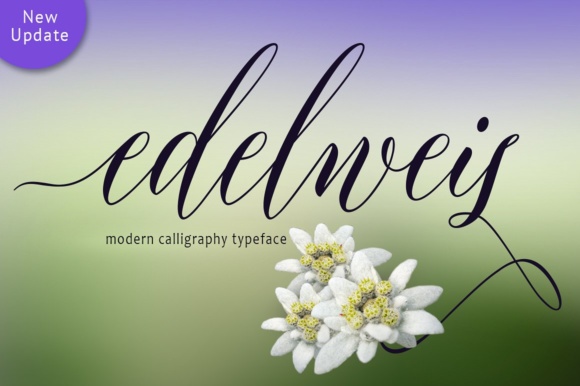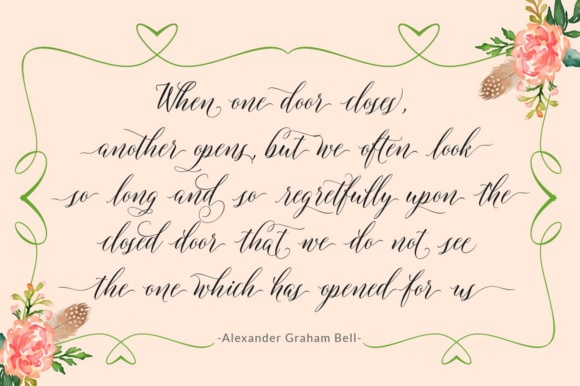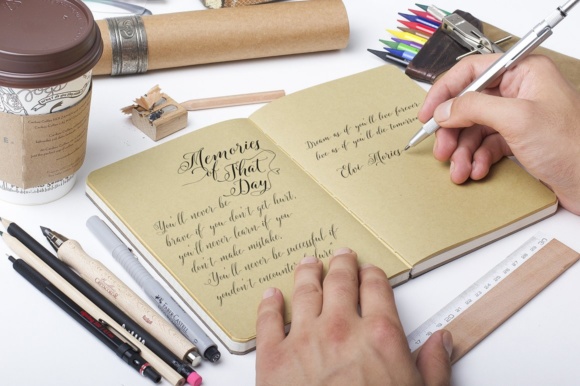
Edelweis Font
About Edelweis Font
Edelweis is a beautiful, flowy calligraphy font that will add tons of elegance and charm to your works. This calligraphy inspired font has a feminine appeal, and works in a ton of different projects.